P22 Cezanne was initially designed by Michael Want in 1996 while he was at P22 type foundry. Cezanne is based on the hand written correspondences of French Impressionist painter Paul Cézanne.
P22 Cezanne was originally created for the Philadelphia Museum of Art. Upon it’s release it quickly became one of the most popular fonts of the1990’s, and has remained very popular to this day.
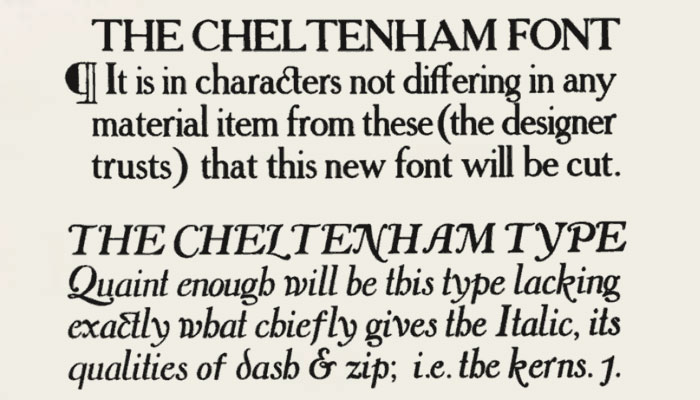
Designed by Bertram Grosvenor Goodhue and Ingalls Kimball and released by ATF in 1902. Nicknamed 'Chelt' by American printers.
A Prima/Vera derived fixed-pitch system font by Apple included in Mac OS X starting with Snow Leopard to replace Monaco.
Matthew Carter designed Verdana and its serifed companion, Georgia, for Microsoft in 1996. Designed as a screen font, Carter began his design with bitmaps and created outlines to match. The fonts were hand-hinted by Tom Rickner.
Lexicon (designed in 1992 by Bram de Does) is pre-eminently suitable for output on laser and other low-resolution printers and for typesetting in small sizes.
Lexicon is therefore the perfect typeface for use in office correspondence) and applications that require highly economical setting (dictionaries, Bibles, timetables, encyclopedias etc.). Lexicon has been used for example in Van Dale's Het Groot Woordenboek der Nederlandse Taal.
Quicksand was designed in 2009 by Andrew Paglinawan (Typophile user "alienbreed" and is offered as a free font for download here: http://typophile.com/node/50437
Thesis is a large font superfamily, deisgned in the late 90s by Luc(as) de Groot of LucasFonts. Thesis fonts have become popular and can be seen in various publications or logotypes. The range of weights are designed using de Groot's "interpolation theory".
The fonts include TheSans, a humanist sans-serif similar to Frutiger and Segoe; TheSerif, a slab-serif; TheMix, a slab-serif font lacking some serifs; and just recently, TheAntiqua, a serif font.
Trixie is a distressed monospaced serif typeface created by Dutch type designer, Erik Van Blokland, in 1991 using the inspiration of an old, worn typewriter. Probably the most famous presentation of a single letter is the Trixie capital X used in the title of the popular science fiction television series, "The X-Files".
Since its release in 1991, from “The X-Files” to more recent appearances in "Capote" and "Atonement", FF Trixie has served as the defacto typeface of mystery and intrigue. Although there have been a number of typewriter-like designs, FF Trixie remains the most convincing, and accurate, typewriter font available.
Designed by Evert Bloemsma 1998-2001
Published by FontFont
FF Meta Serif was recognized as one of its Favorite Typefaces of 2007 by the type blog Typographica.
Hans Reichel, 1995-2000
The FF Dax family developed from the idea of combining the clarity of a narrow Futura with a "slightly roman touch". The result is a space-saving but very legible typeface.
Ten years after FF Dax was created, Reichel revised the forms as FF Daxline, designed to be more readable variation for text use.
Martin Majoor, 2004
FF Nexus is built on Martin Majoor's "three typefaces, one form" principle. Three families — a serif, slab serif, and sans — are derived from a single design concept. The monospaced FF Nexus Typewriter plays well with the others, too. This breadth of options, combined with OpenType features (such as built-in small caps, alternate glyphs, and optional swashes) make FF Nexus an extremely versatile type system.
FF Info Text Italic and Caps Italic are brand new designs by Ole Schäfer as extensions to the Text family.